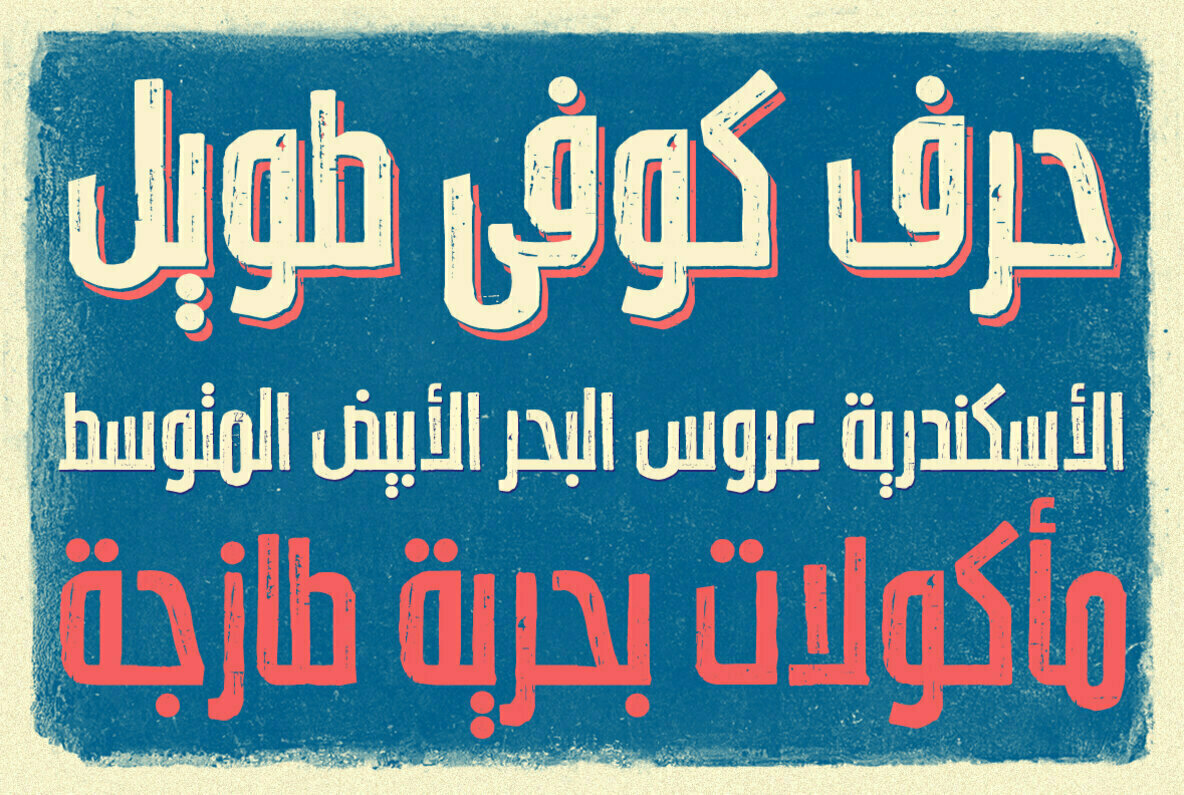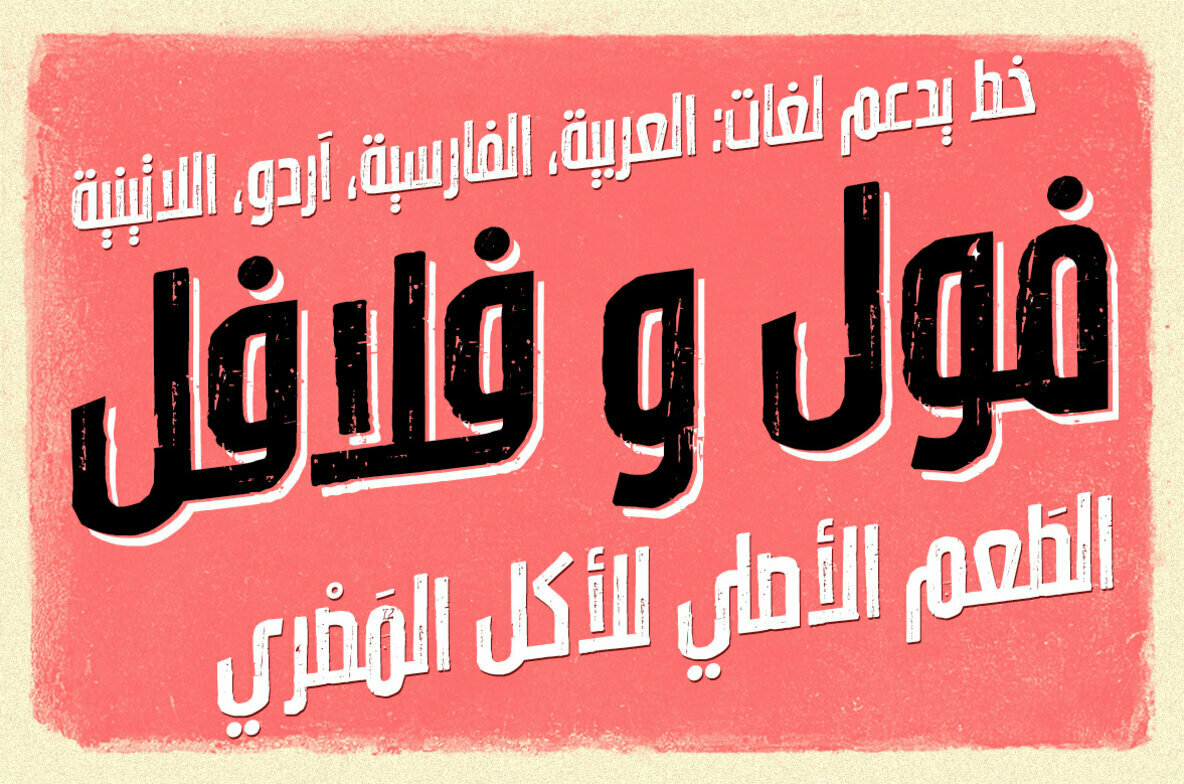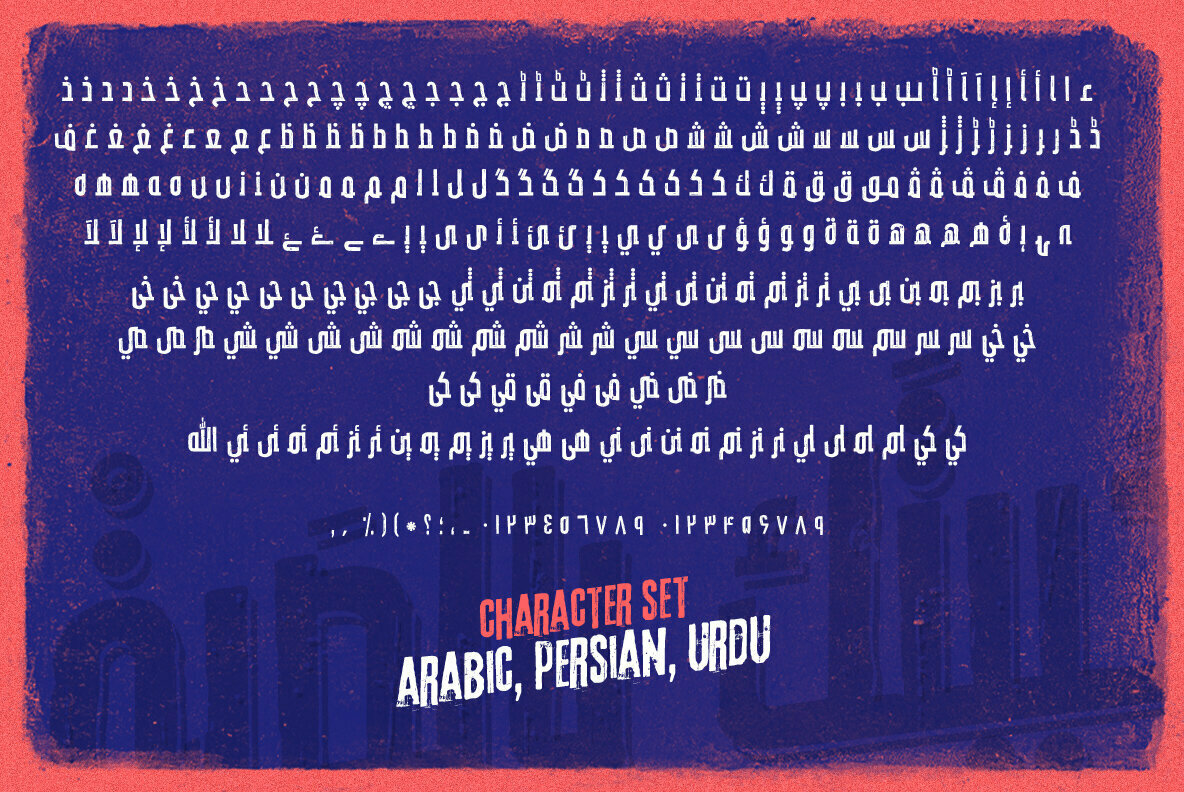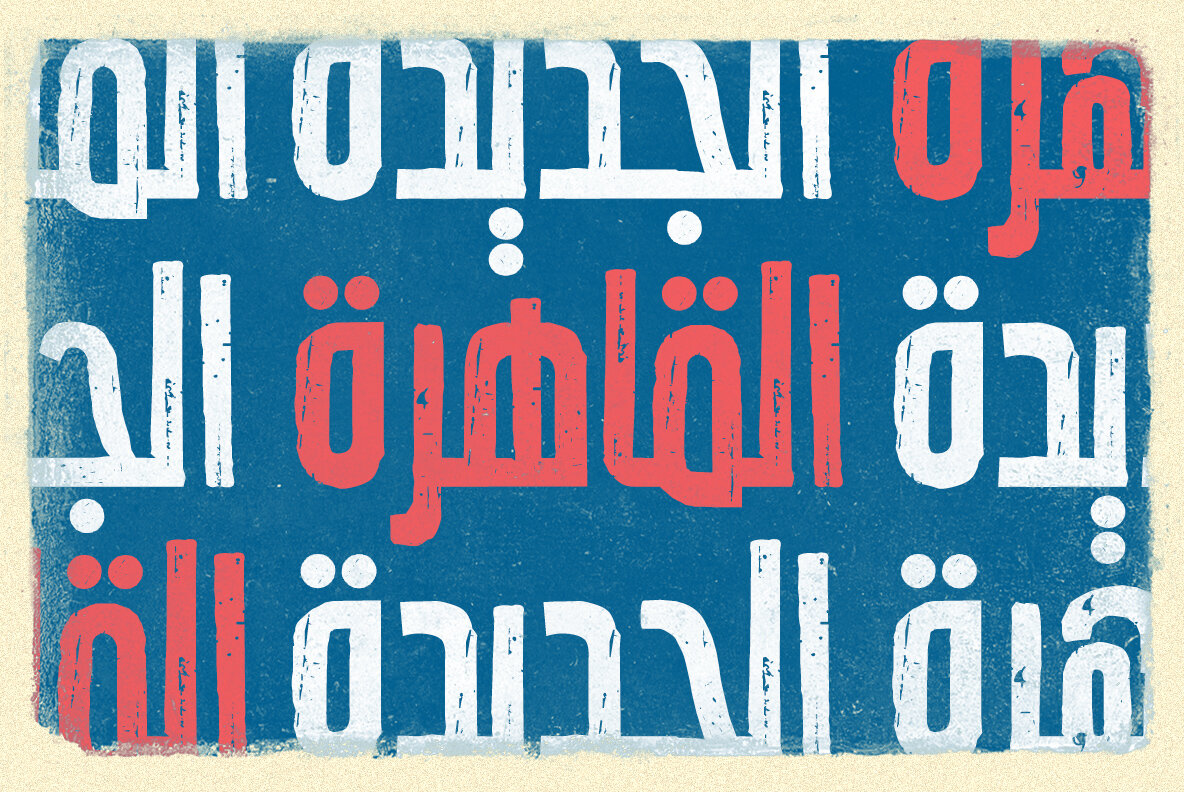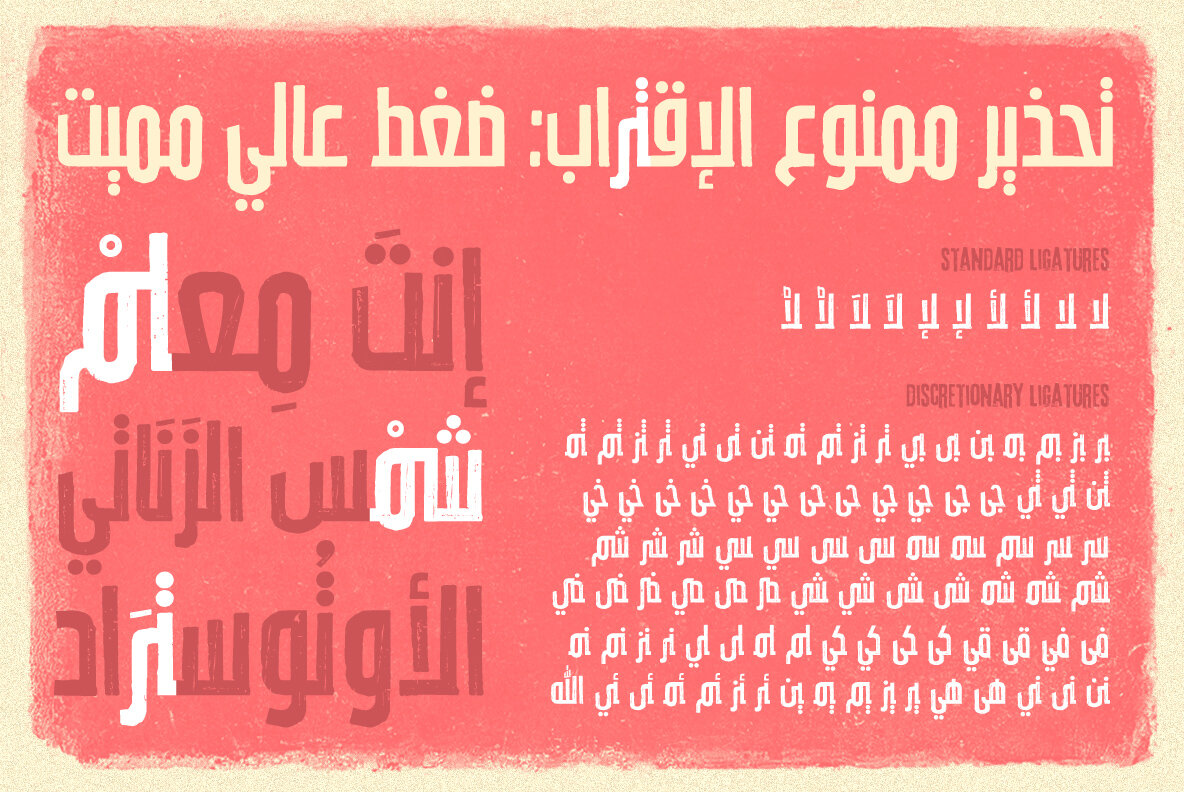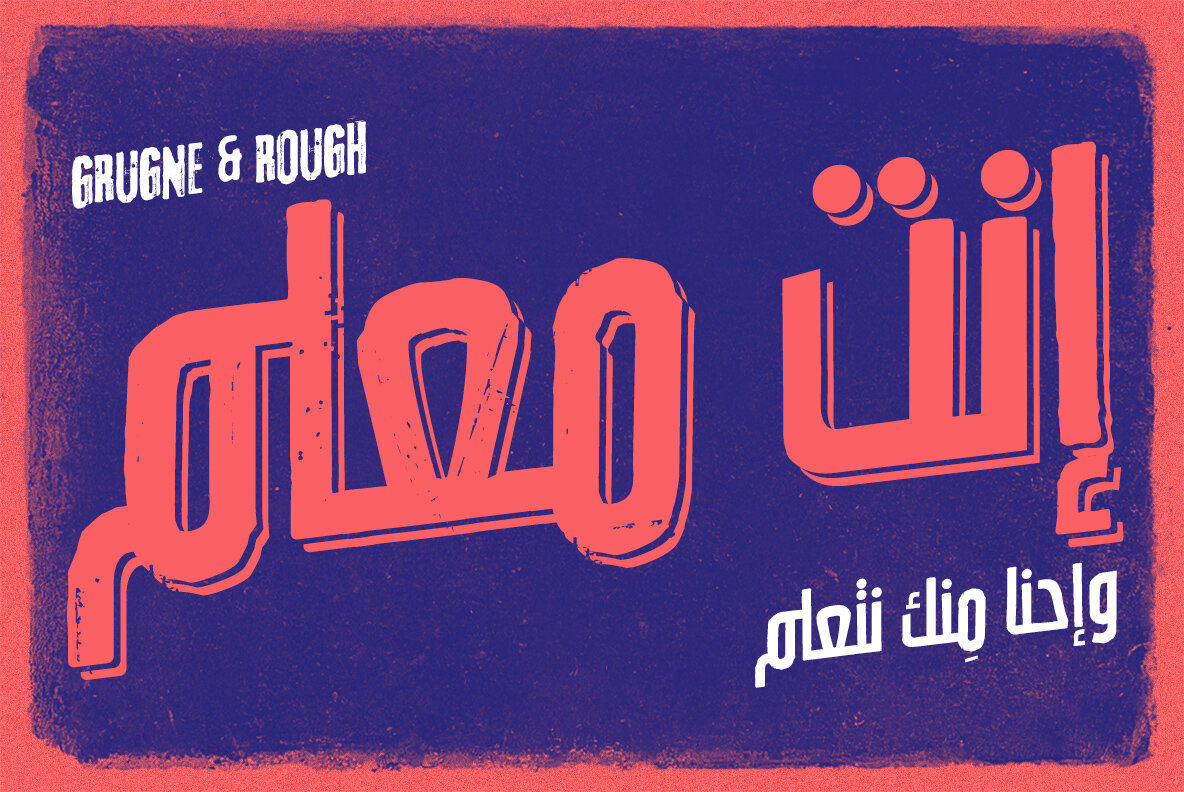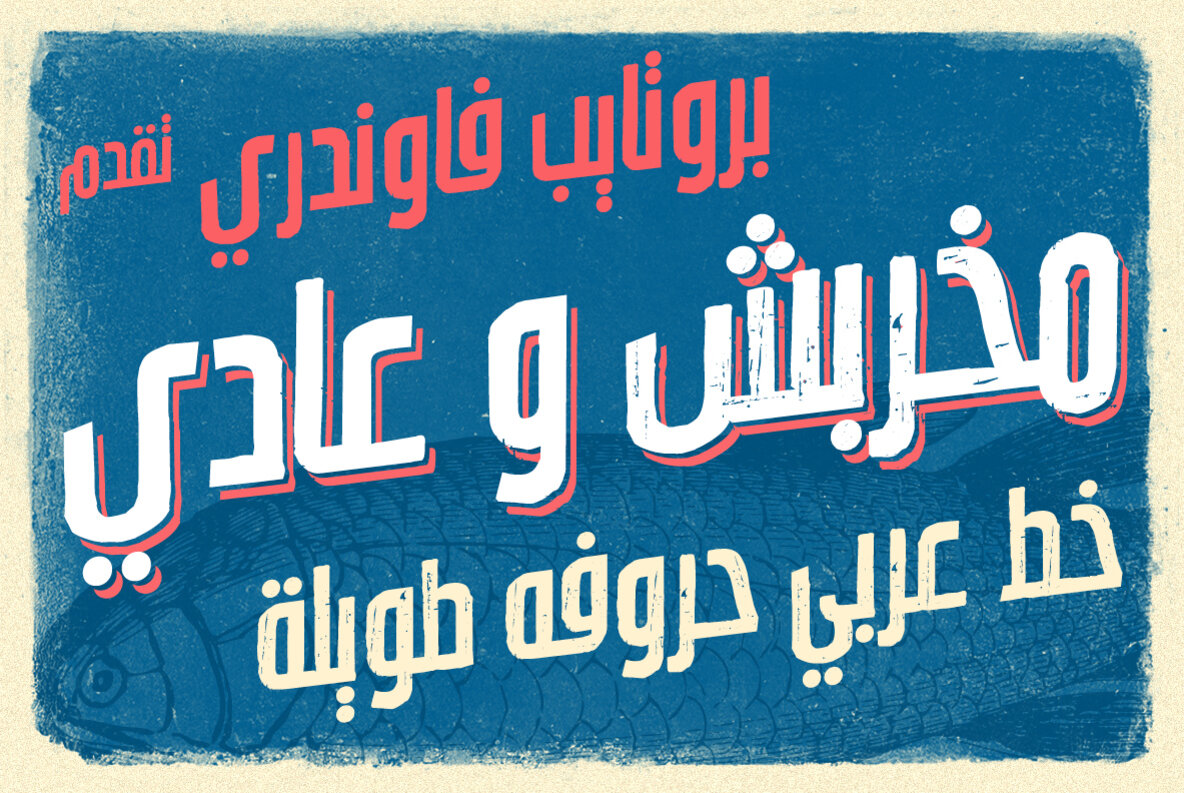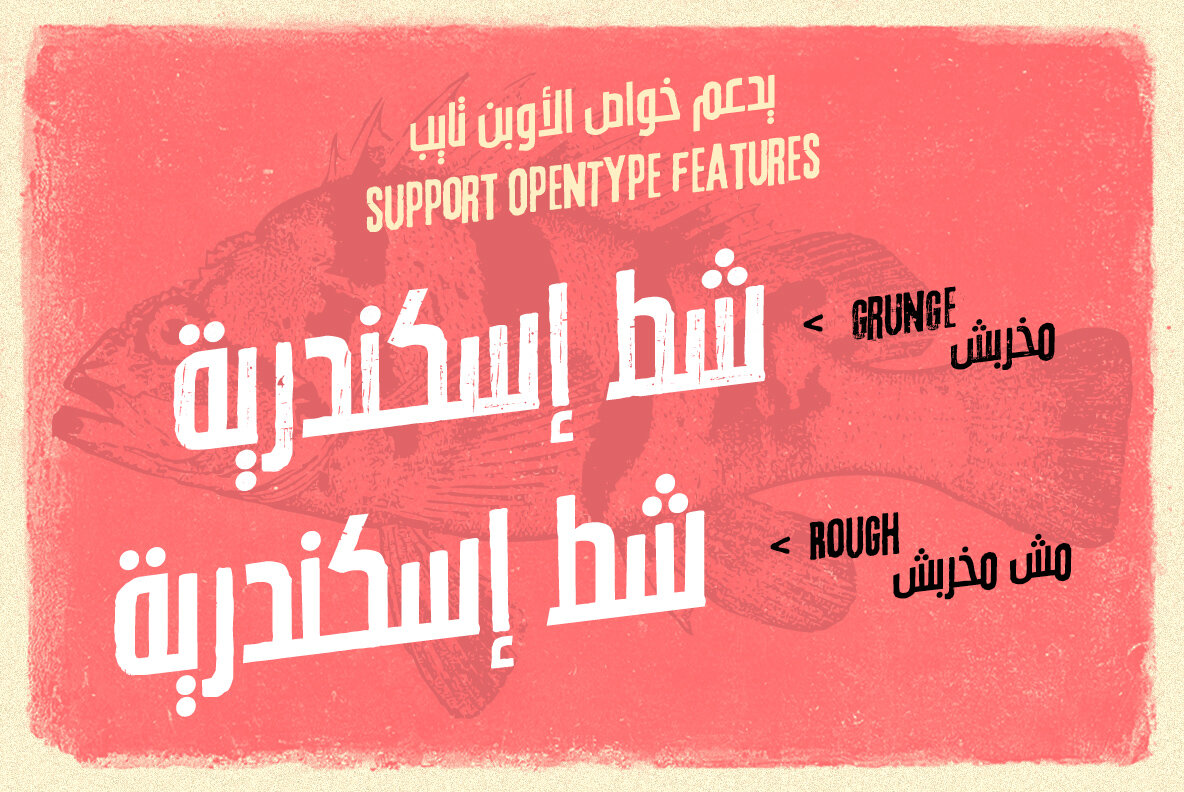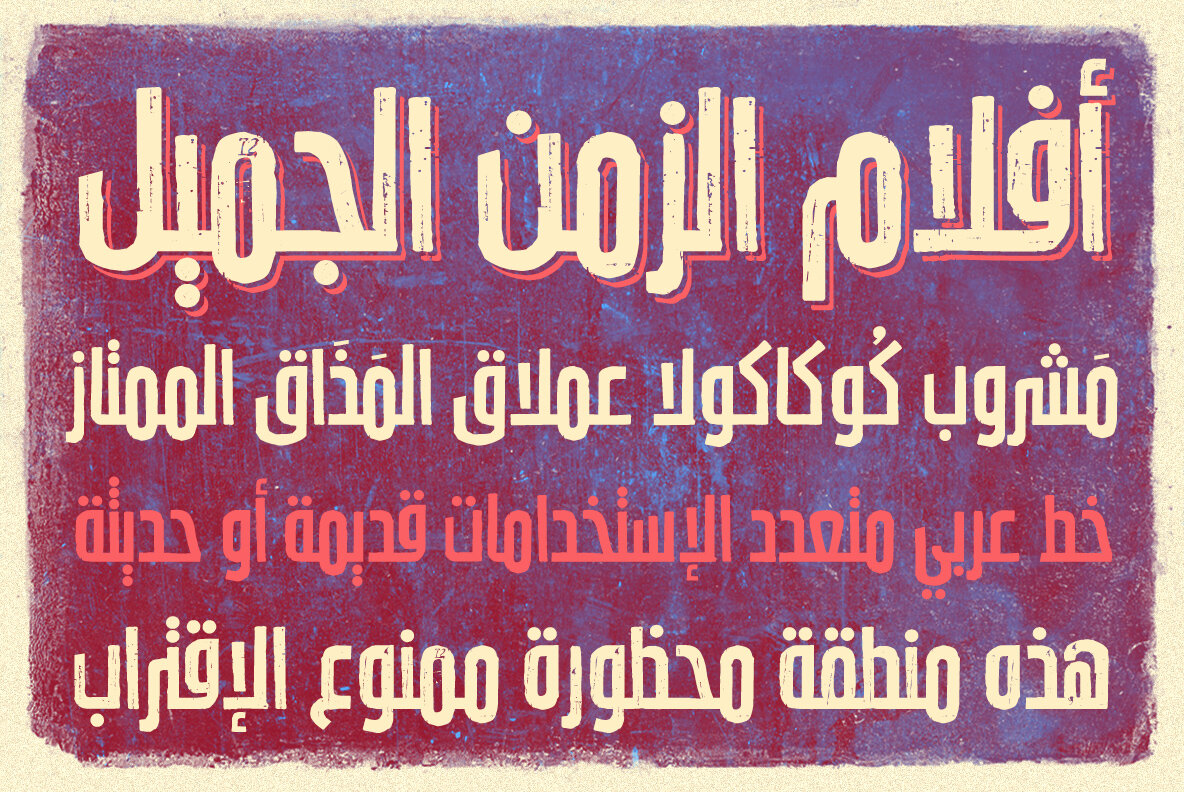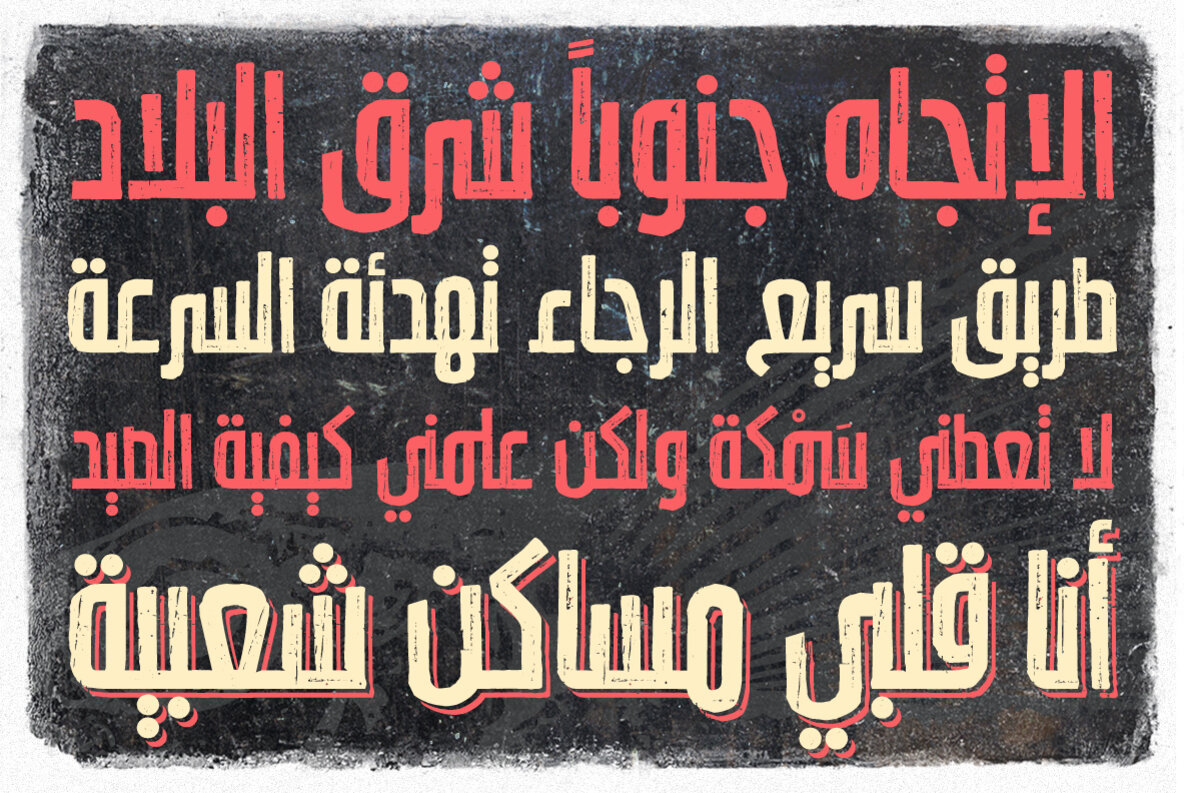
Lavah Pro Font
Lavah Pro is the upgrade from old version of Lava Arabic 1.0. It's Arabic condensed/narrow with grunge and rough style for vintage style posters, brands or ads maybe for food ads or movie poster.
Lavah Pro is supported by OpenType Features with many Stylistic Alternates and Discretionary Ligatures and It's support Arabic, Persian, Urdu and Latin.